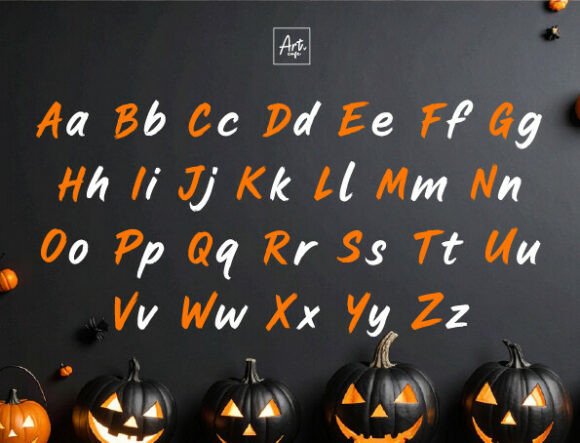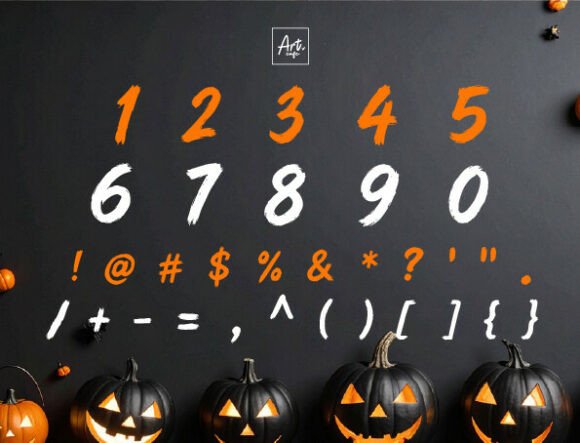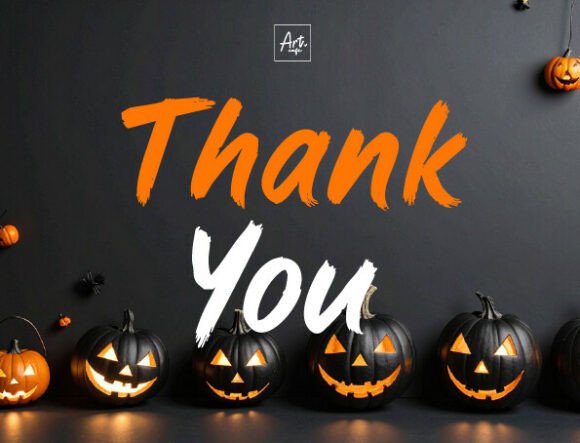
Introduction to Ghouls Halloween Font
Introducing Ghouls Halloween, a striking display font that type enthusiasts will adore.
Carefully created with the unique characteristics of ink and brush strokes, this font subtly evokes a feeling of freedom and extremity Transcending its Halloween-inspired name, the Ghouls Halloween font is incredibly versatile and ideal for capturing attention in headlines across multiple project types.
Ghouls Halloween Font offers exceptional quality and versatility, making it a valuable addition to your design toolkit. Whether you’re creating for personal projects or commercial use, Ghouls Halloween Font delivers professional results.